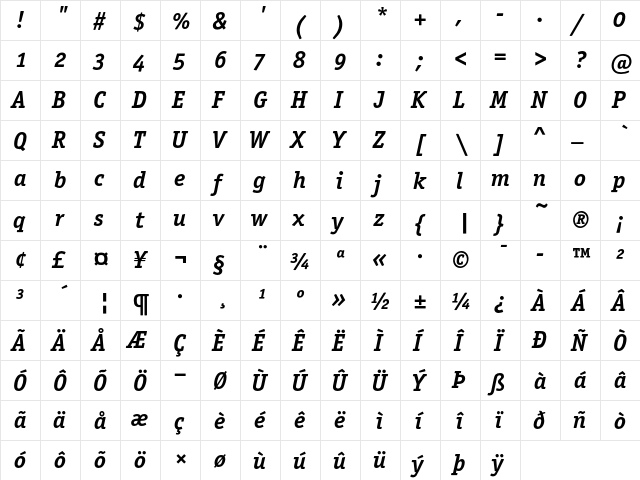
Officina Serif ITC Bold Italic OS Font Preview
Officina Serif ITC Bold Italic OS
Design Context for Officina Serif ITC Typeface
Officina Serif ITC brings classic typographic sensibility to the table — its serifs and measured letterforms reflect centuries of print heritage. The dynamic lean of this cut emphasises speed and emphasis in any layout. Its bold stroke weight gives it real presence on the page.